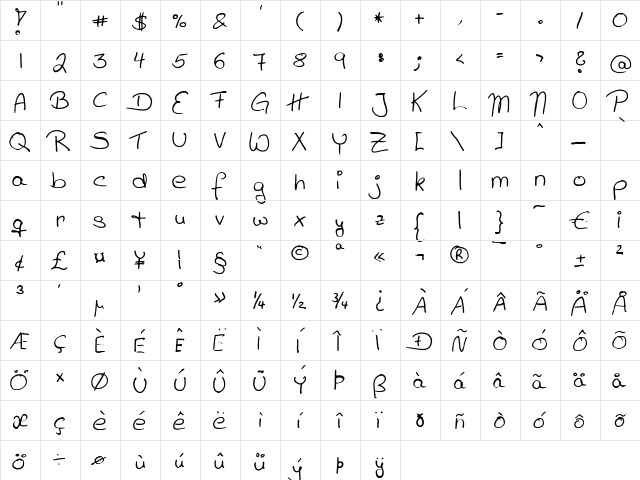
FGRut Regular
| Foundry | Font Garden |
| Designer | Font Garden |
Design Context for FGRut Typeface
FGRut is a composed and adaptable typeface that performs quietly and consistently across a wide range of design contexts.